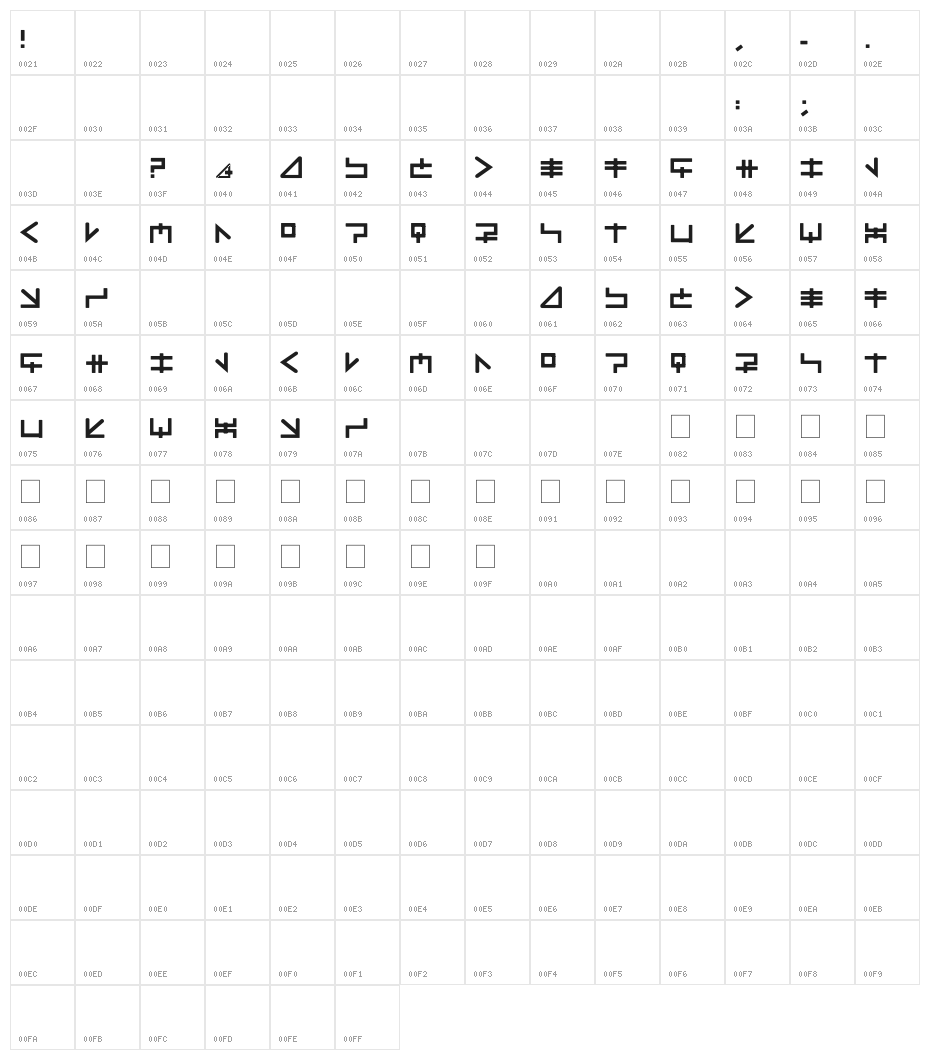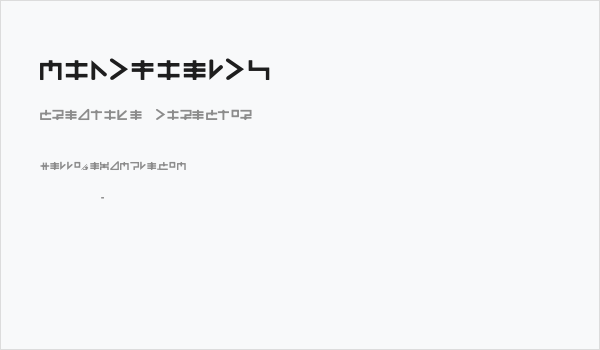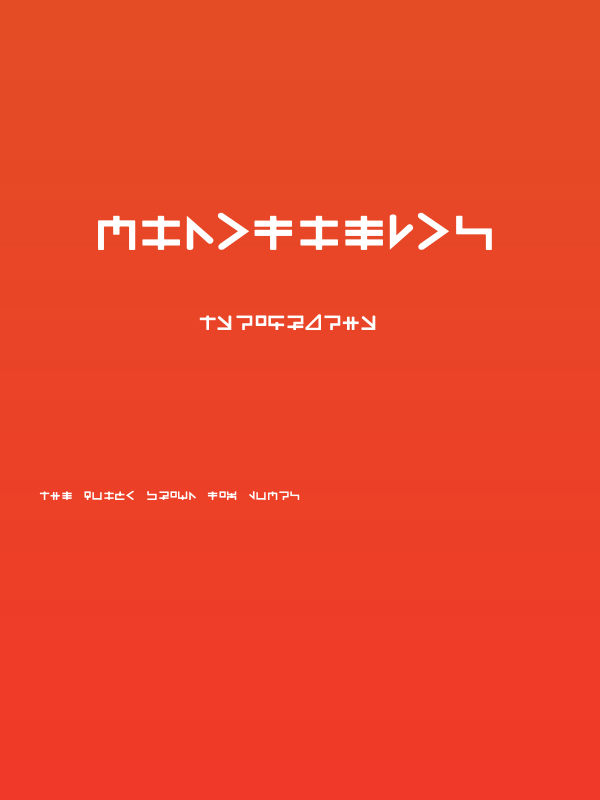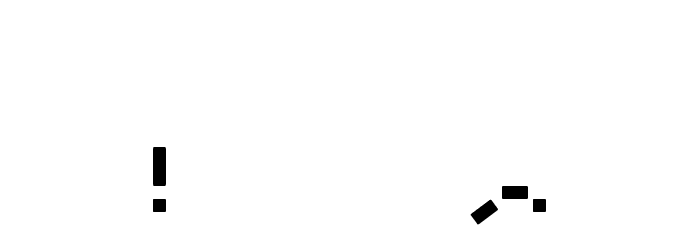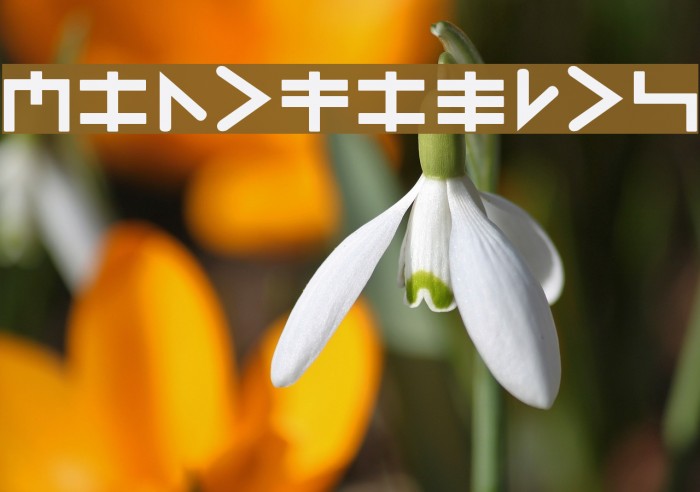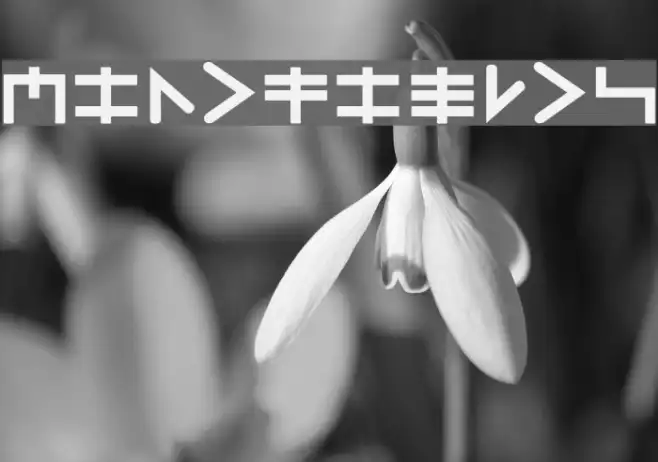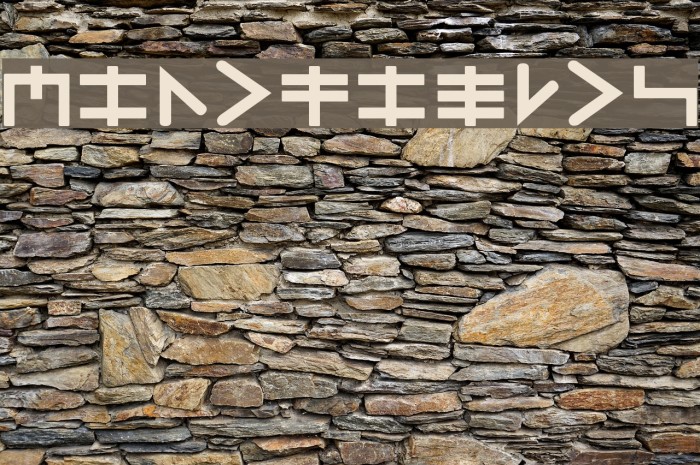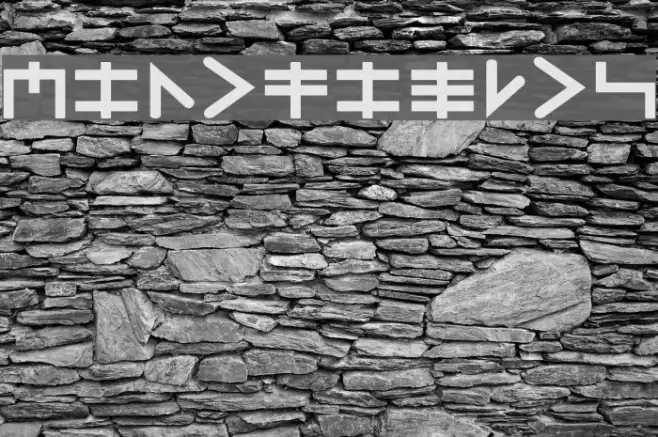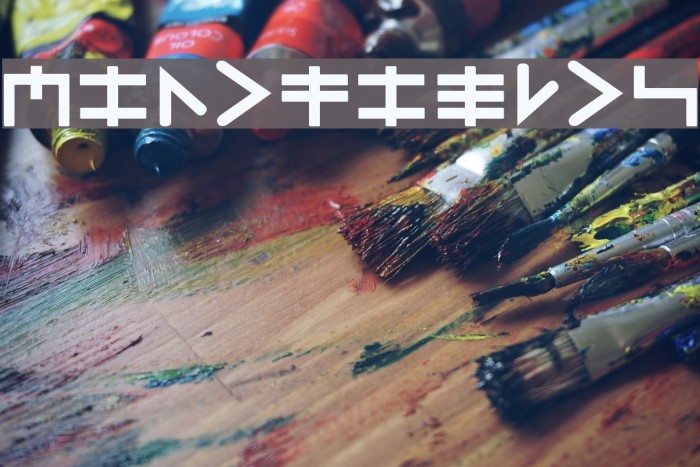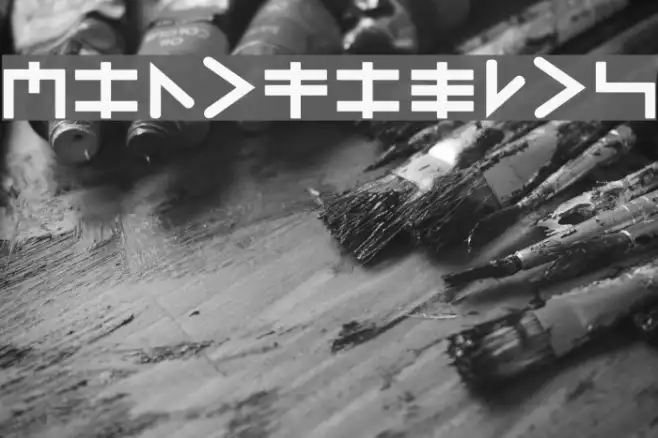
MindFields Font
MindFields Description
This font features a highly stylized, geometric design with angular and abstract shapes. Each character is composed of straight lines and sharp angles, creating a futuristic and cryptic appearance. The uniformity in line thickness and the consistent use of right angles contribute to its mechanical and structured look. The font lacks traditional curves and serifs, opting instead for a more rigid and technical aesthetic. This design choice gives it a unique and modern feel, suitable for projects that require a distinct and unconventional typeface.
| Proposed Projects | Ideal for sci-fi themed designs, video game interfaces, futuristic branding, and tech-related projects. |